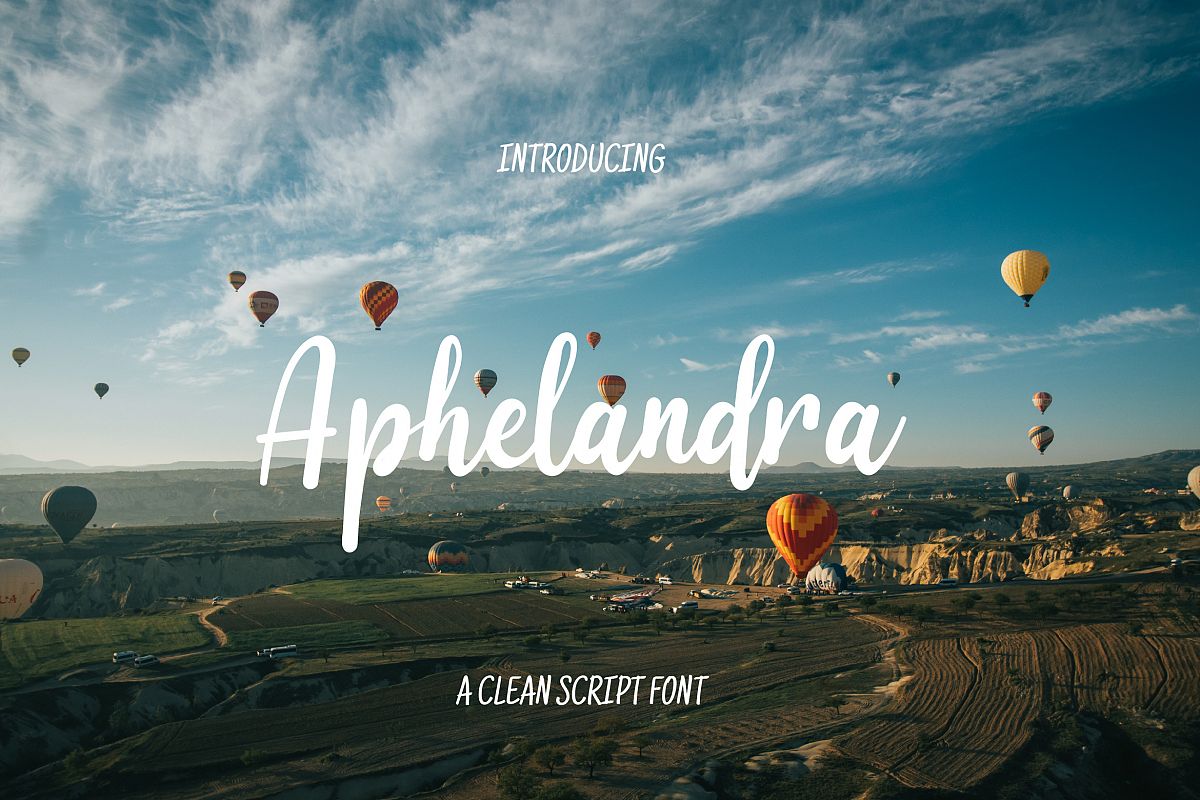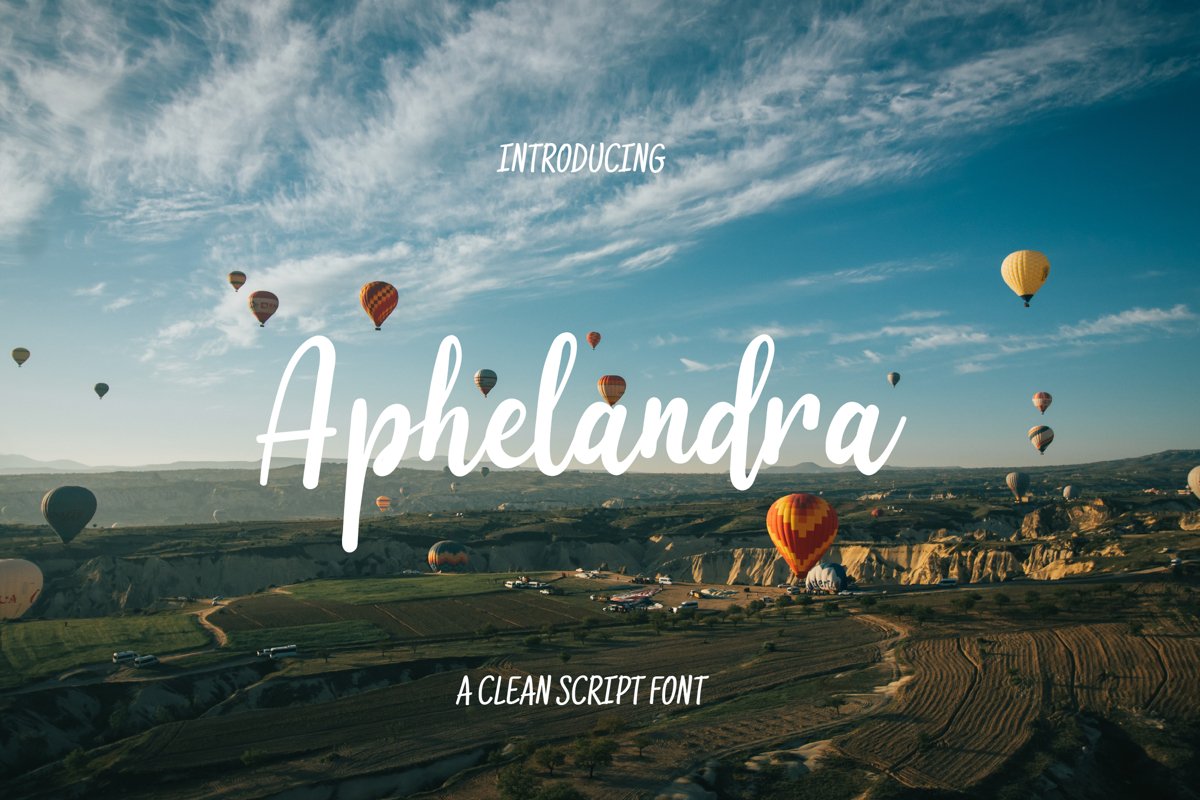
Aphelandra Font
Aphelandra
Aphelandra Font is a crafted with love. Designed to work perfectly in multiple designs like weddings invitations and many many more.